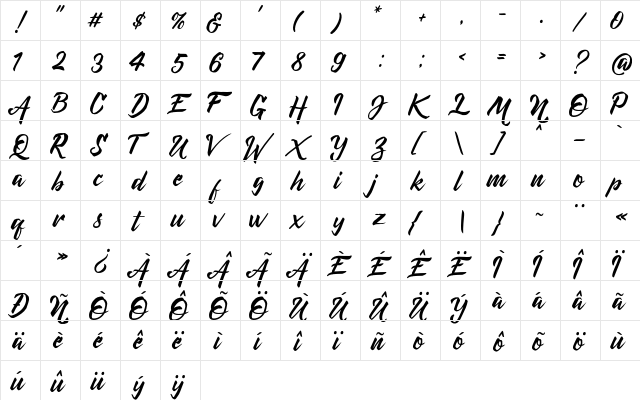
DeHangster Free Demo Regular
Design Context for DeHangster Free Demo Typeface
DeHangster Free Demo is a composed and adaptable typeface that performs quietly and consistently across a wide range of design contexts.